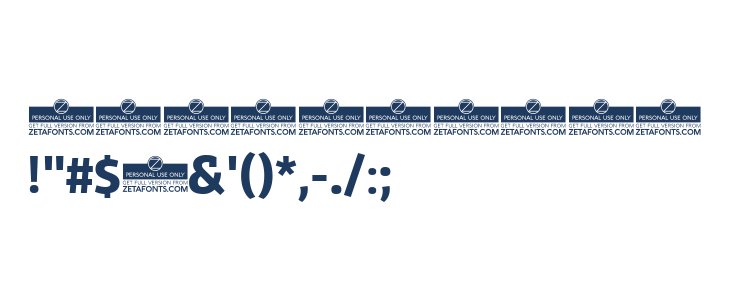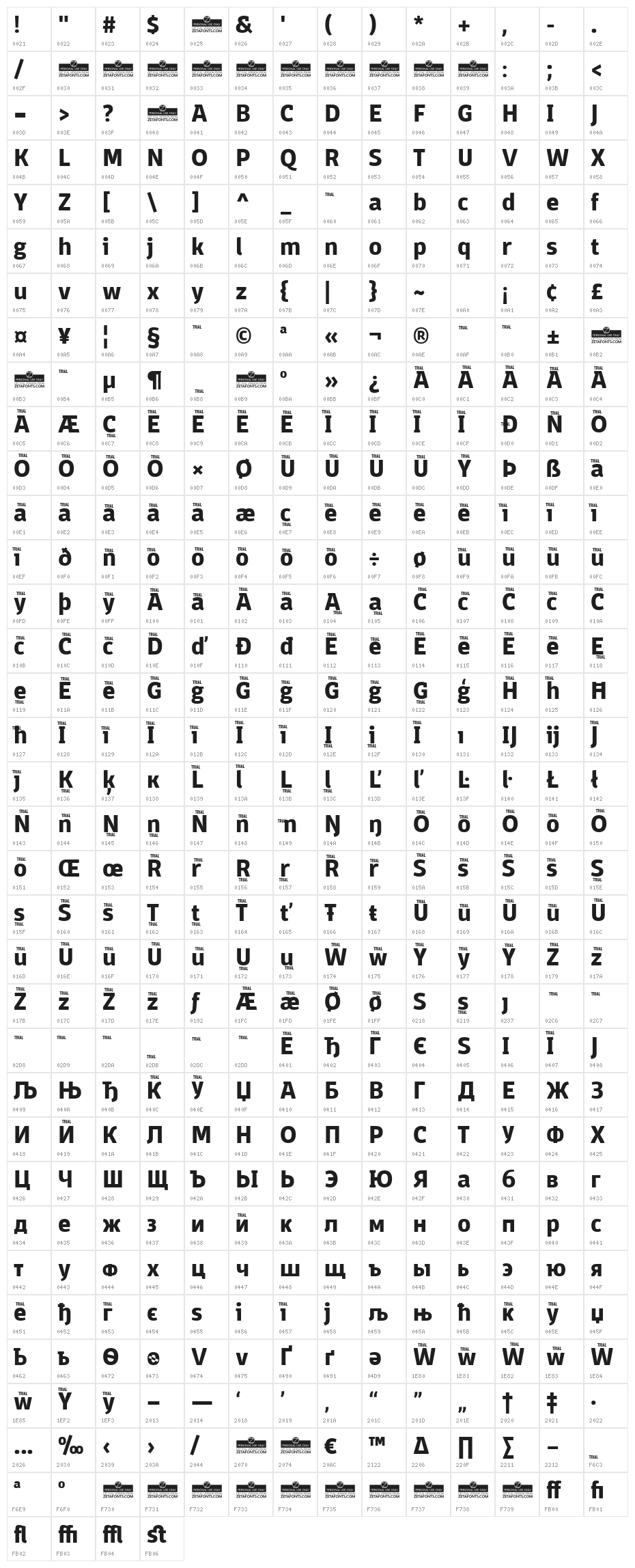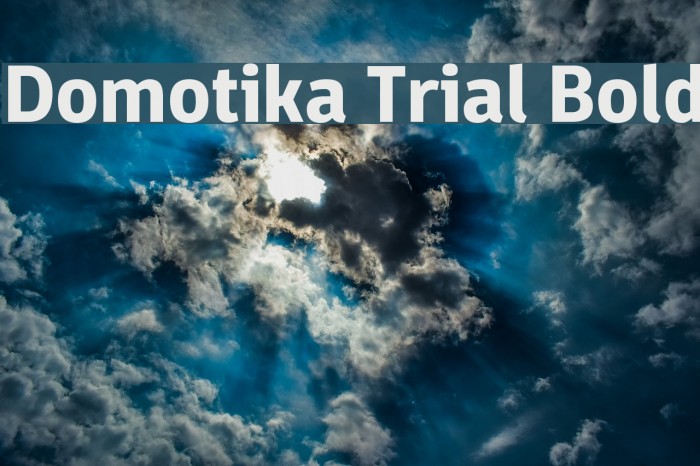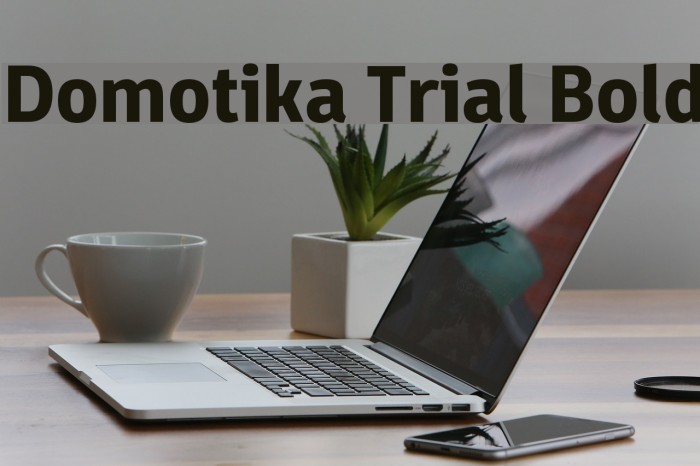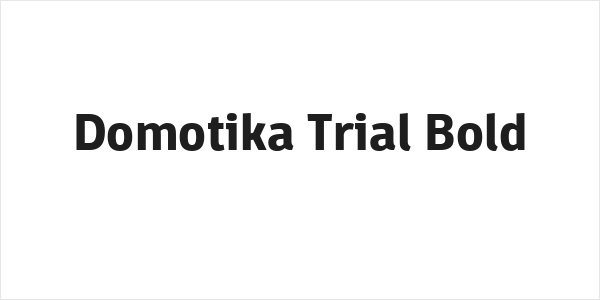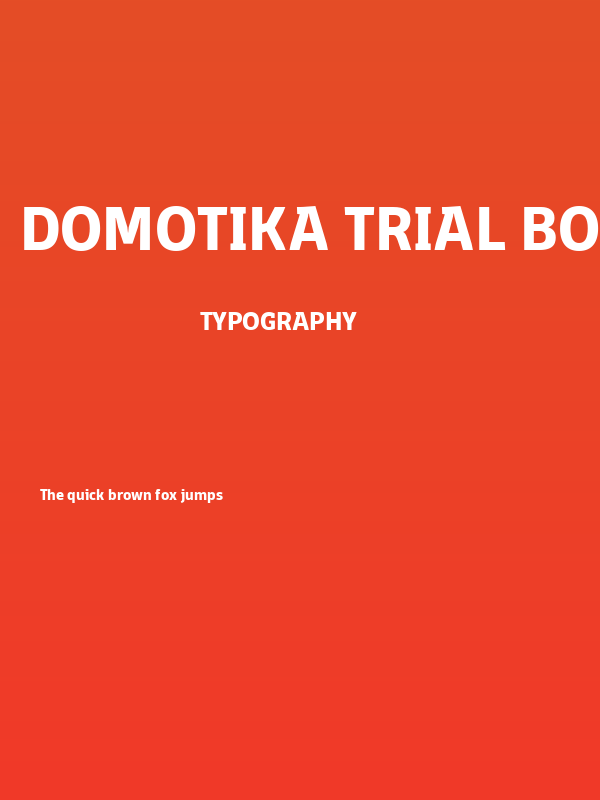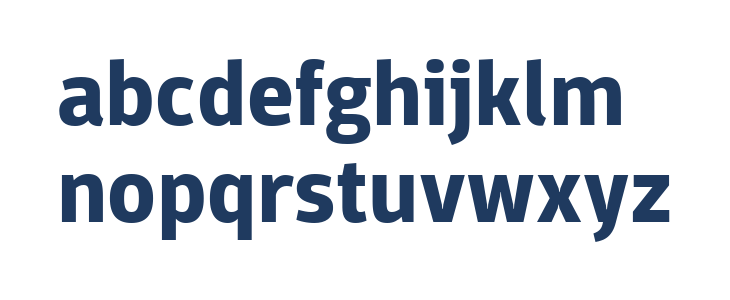
Domotika Trial Bold Font
Domotika Trial Bold Description
This font exhibits a bold and modern sans-serif style with clean, geometric lines and a strong presence. The uppercase and lowercase letters are well-proportioned, offering a balanced and uniform appearance. The characters are slightly condensed, which enhances readability while maintaining a compact form. The numerals and special characters are consistent with the overall design, providing a cohesive look across all glyphs. Its bold weight and high contrast make it suitable for impactful headlines and attention-grabbing designs.
| Proposed Projects | Ideal for branding, advertising, headlines, and digital media where a strong, modern presence is needed. |